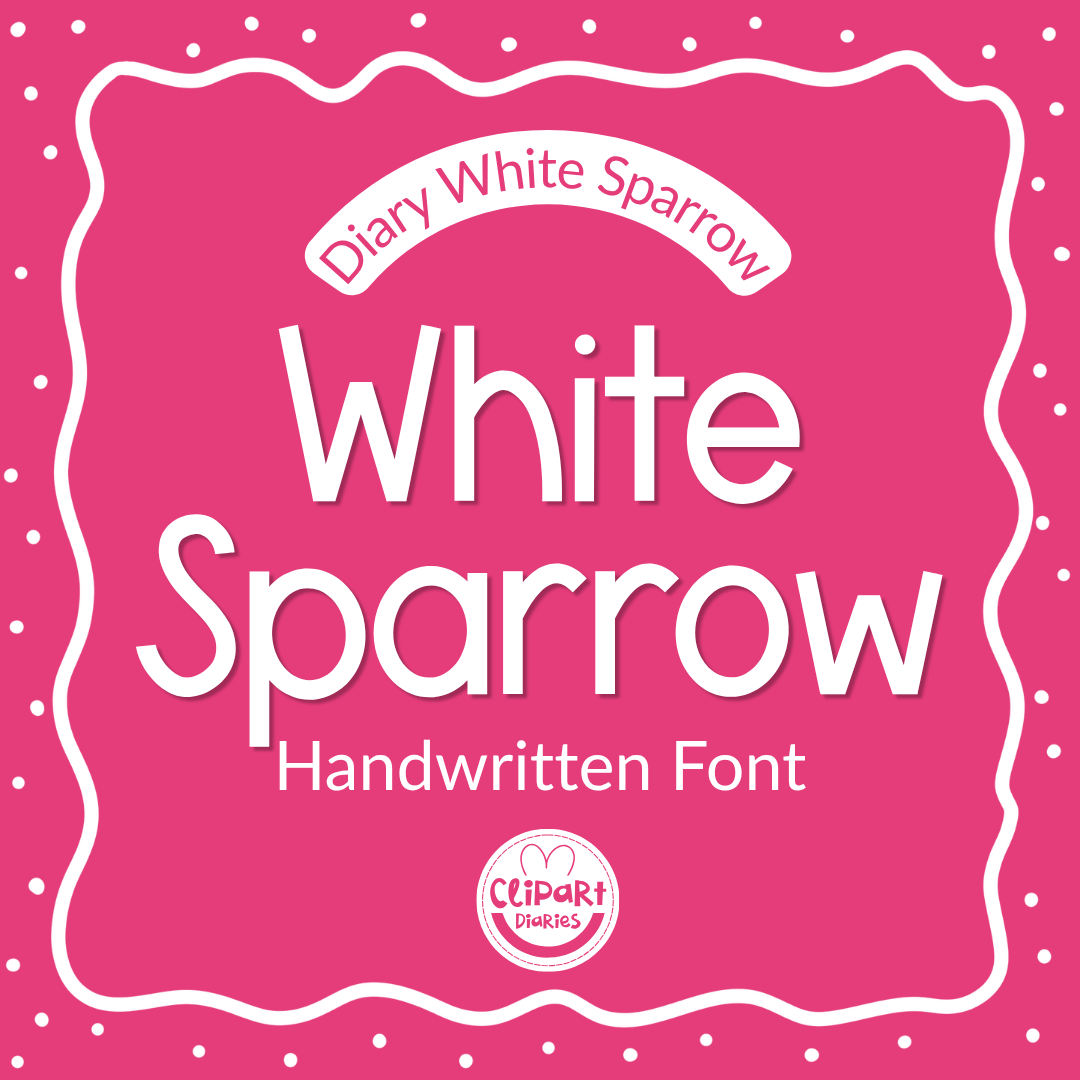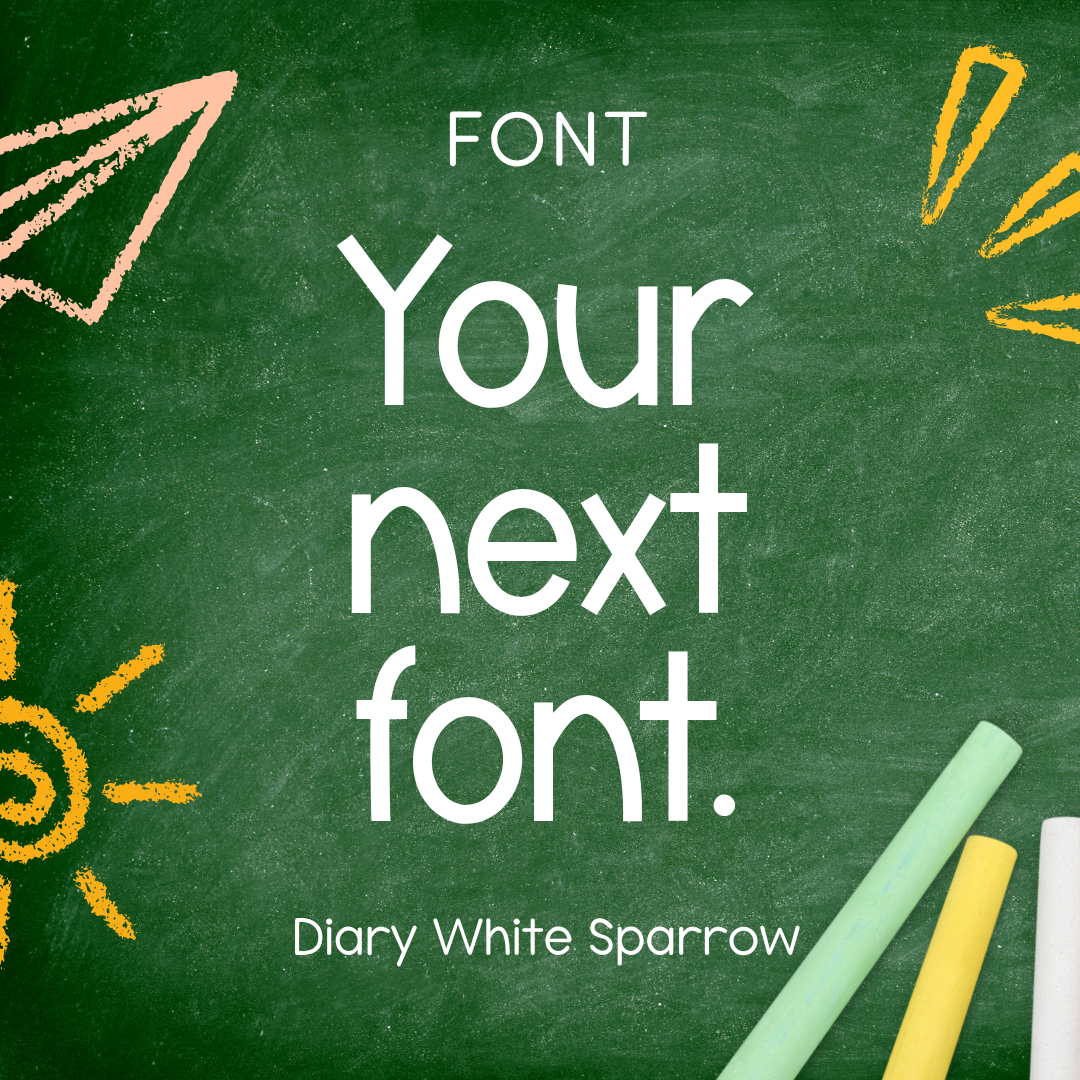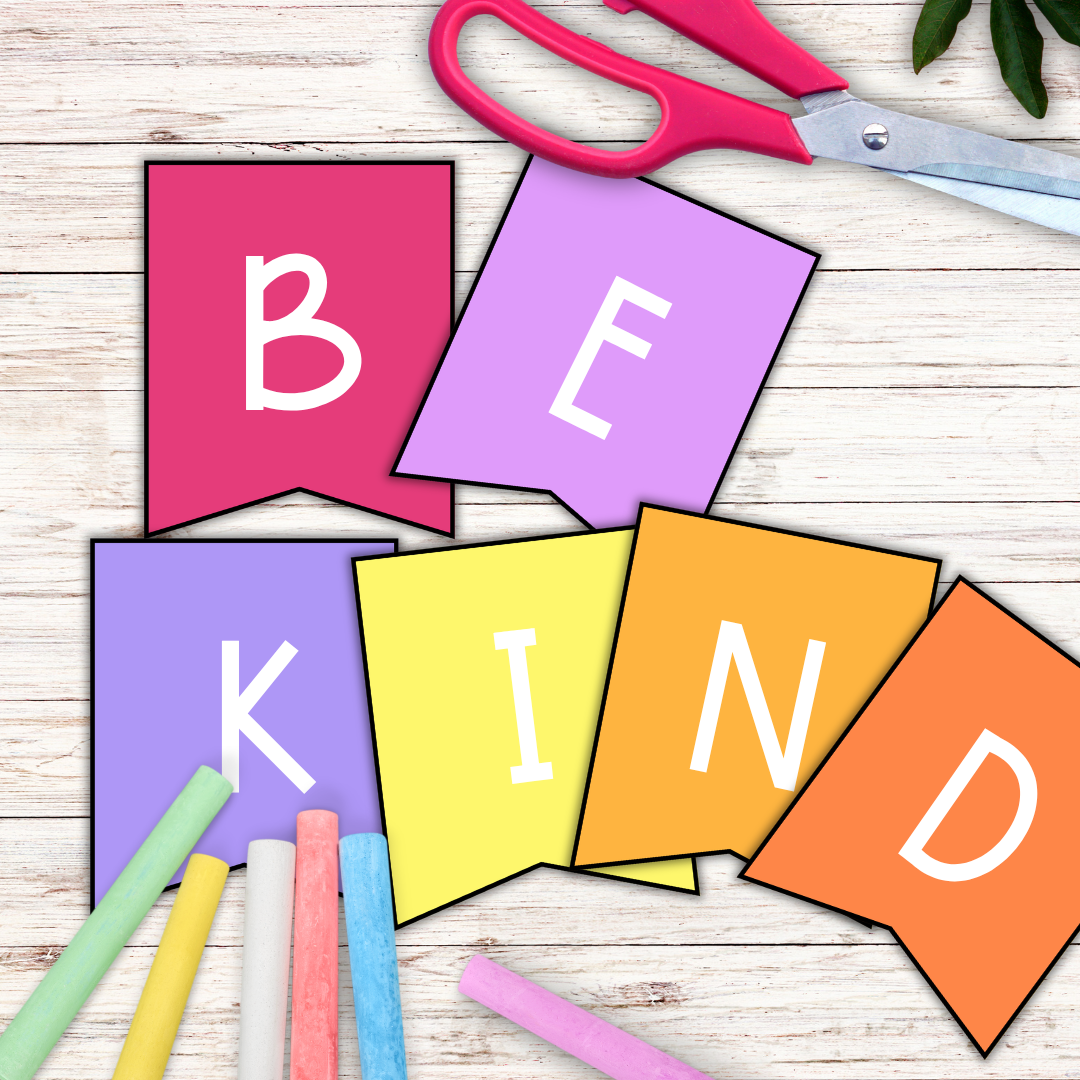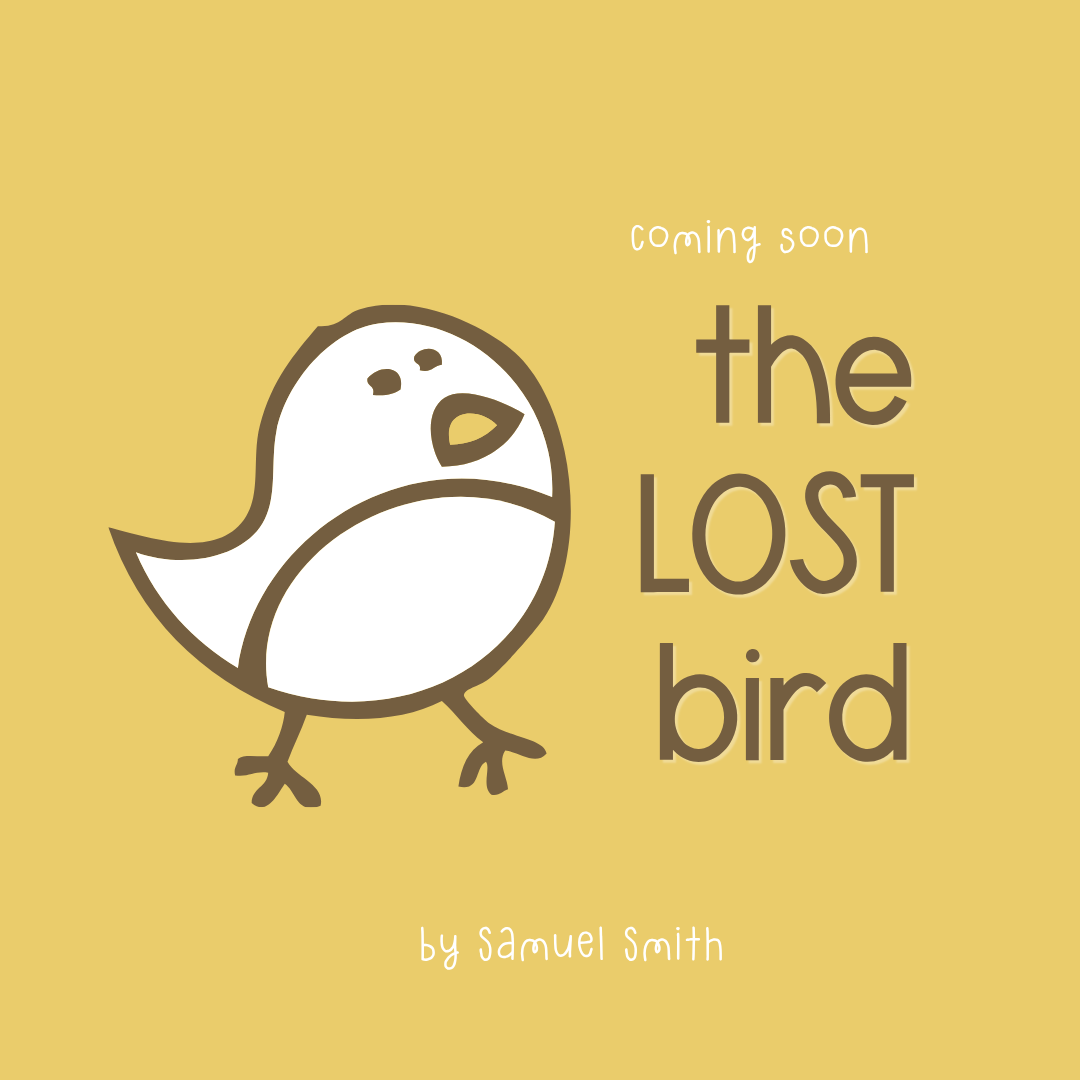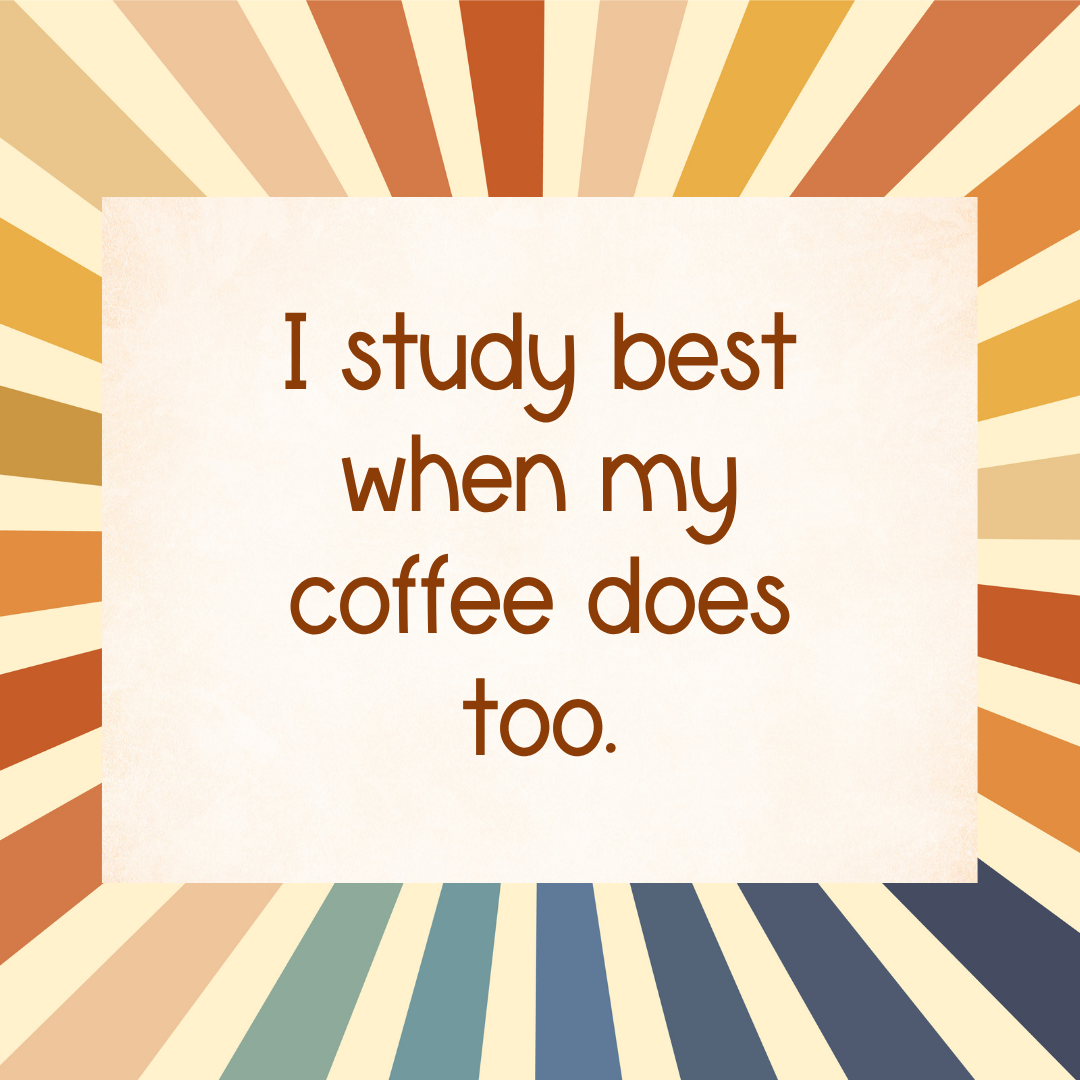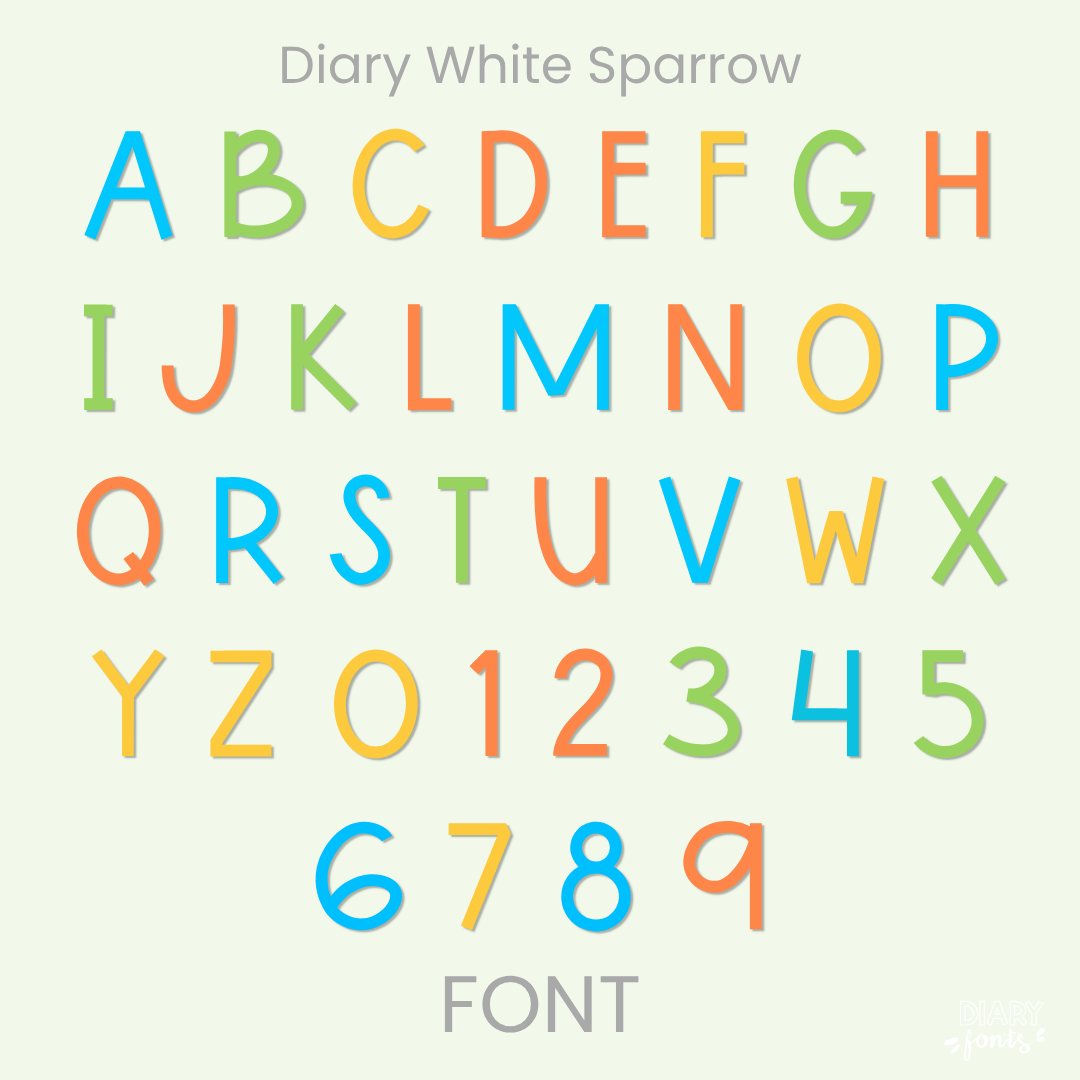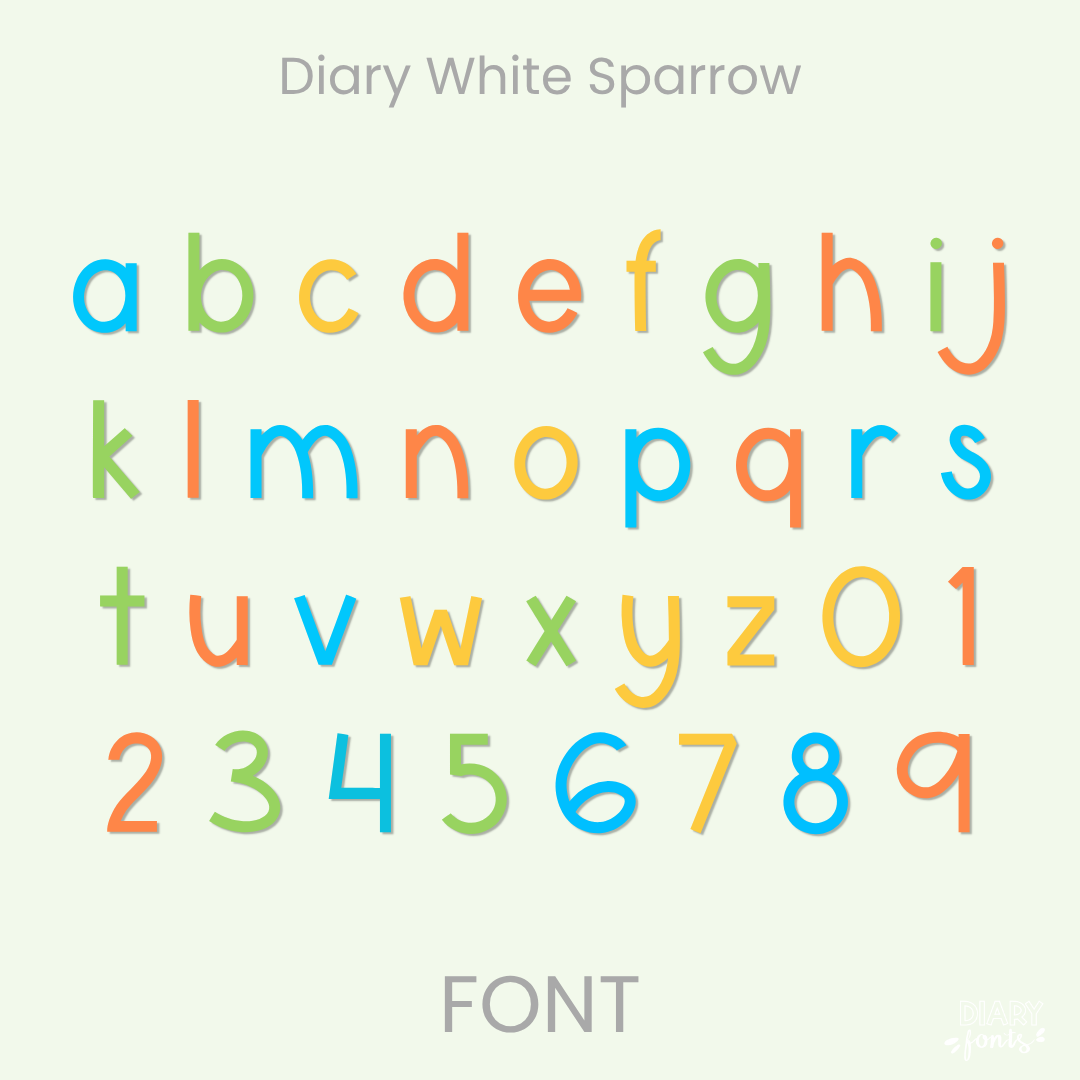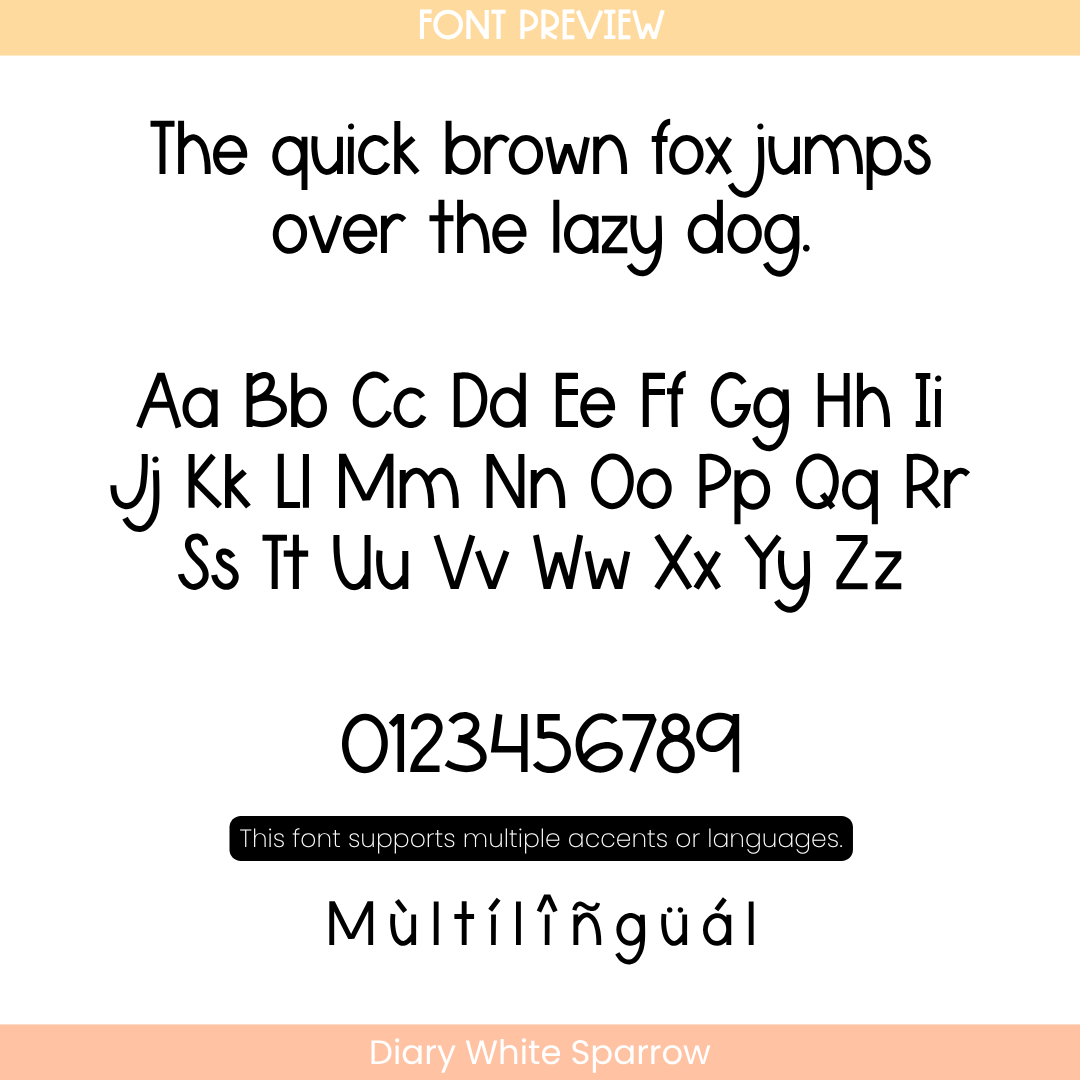
If you’ve been looking for a reliable, everyday elementary print font that has all the sweet charm of a natural hand-lettered style but keeps your layout looking incredibly professional, Diary White Sparrow is about to become your new absolute favorite design tool. This typeface features a beautifully clean, monoline geometric structure with perfectly balanced proportions that stand straight along the baseline. Because these delightful characters are open, uniform, and feature plenty of generous breathing room between them, it completely cuts out the visual noise—making it an exceptionally clear and legible worksheet typography choice for your sweet students to read from anywhere in the room.
It is the absolute perfect choice for typing up daily science lessons, elementary reading printables, classroom bulletin board banners, morning meeting slides, and structured educational resource text blocks. Inside the download, you’ll get a full set of neat uppercase and lowercase sans-serif print letters, clean modern numbers, and multi-accent markings for complete multilingual support. It drops right into Canva, MS Office, or Adobe on your desktop, and pairs beautifully with Procreate and GoodNotes on your iPad. Whether you’re prepping weekly activities for your own sweet classroom or designing a fresh new commercial-use product line for your online teacher shop, this versatile display heading font adds a touch of confident, warm style to your toolkit.